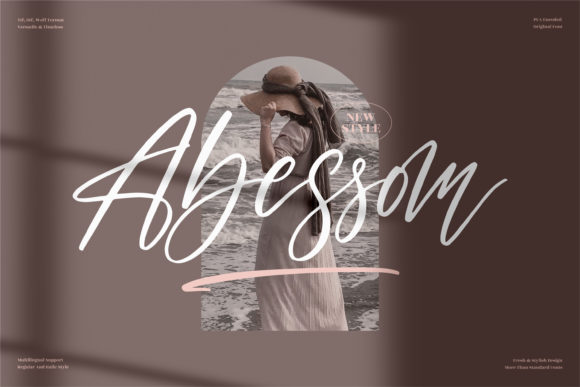
The Abessom Font: A Laid-Back and Stylish Script for Your Designs
Abessom Font: The First Impression
Abessom is a laid-back and stylish script font that looks beautiful on a variety of designs requiring a personalized style. Its unique charm and character make it perfect for designers, crafters, and creative hobbyists who want to add a touch of elegance and sophistication to their work.
What I Love About Abessom Font
- ✨ PUA encoded: This means you can access all of the glyphs and swashes with ease, making it simple to customize your designs.
- ✅ Laid-back and stylish: Abessom has a unique blend of casual and sophisticated vibes that make it perfect for a wide range of design projects.
- 💫 Beautiful swashes and glyphs: The font comes with a range of swashes and glyphs that can be used to add a personal touch to your designs.
While Abessom is an amazing font, there are a few small quirks to be aware of:
- ⚠️ Some characters may not work well in all contexts: As with any script font, some characters may not work well in all contexts, such as in tables or alongside certain symbols.
- 🤔 May require some experimentation to get the hang of: With so many glyphs and swashes available, it may take some time to get used to using them effectively.
The Backstory of Abessom Font
The Abessom font was designed with the intention of creating a unique and stylish script font that would add a touch of elegance and sophistication to any design. The designer wanted to create a font that was both laid-back and refined, making it perfect for a wide range of design projects.
| What is Abessom font? | Abessom is a laid-back and stylish script font that’s perfect for designs that require a personalized touch. |